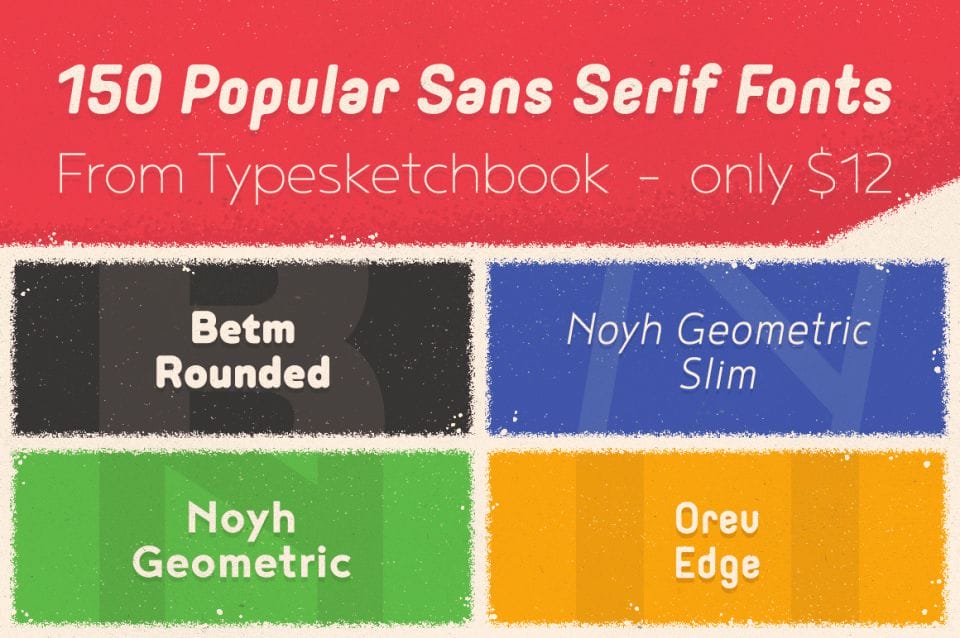
Sick of looking for that specific font that would be just perfect for your latest project? Worry no more because this Mighty Deal from Typesketchbook is made up of 4 popular Sans Serif font families:
- 4 professional Font Families:
Noyh Geometric SlimNoyh - Betm Rounded
Orev Edge
- 150 different typefaces in total.
- Multiple weights and styles – regular, italics, bold, thin, etc.
- Endless choices – mix and match to suit your needs.
- Great set for printed projects – magazines, newspapers, editorial, publishing, labels, packaging and more.